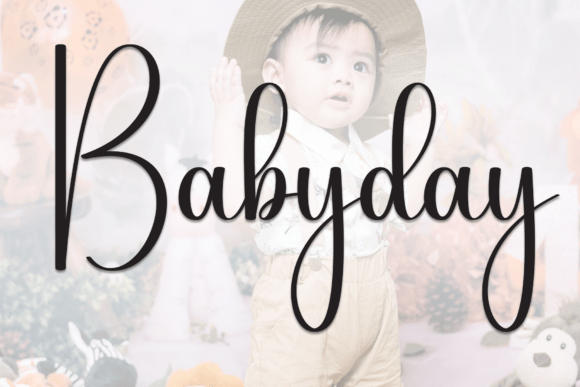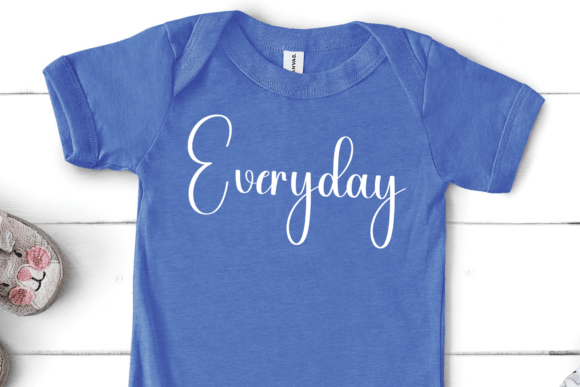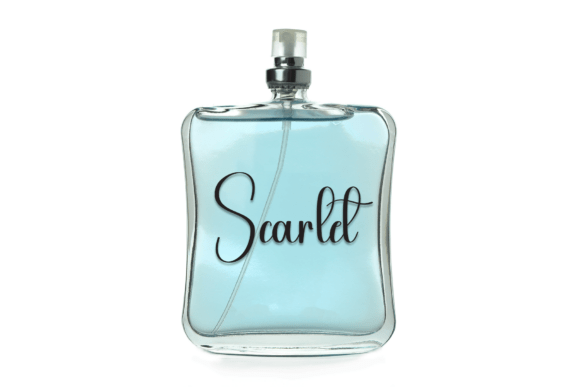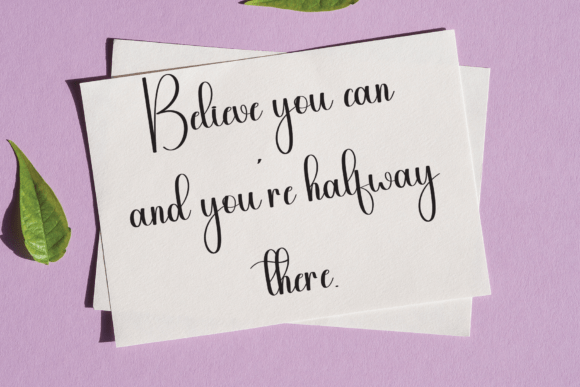
Babyday Font: Elegant Calligraphy Script for Wedding & Branding
About the Babyday Font
Add a touch of class to your work with the Babyday Font, a truly exceptional typeface. Elegant and expressive, this script font flows with effortless beauty. Featuring graceful curves and smooth connections, it’s ideal for adding a sophisticated, handwritten feel to wedding invitations, logos, branding projects, and social media graphics. Whether you’re designing something romantic or refined, this script font brings a timeless charm to any design.
Babyday Font’s elegant, expressive nature makes it perfect for projects requiring a touch of sophistication and handwritten charm. It excels in headlines, logos, short text blocks on packaging, and social media posts. However, its script style is less suitable for body text or UI elements where readability over long passages is crucial. Avoid using it for lengthy paragraphs or applications requiring high levels of legibility.
To complement its refined style, pair Babyday with a clean sans-serif like Lato for a contemporary feel, or a classic serif like Garamond for a more traditional approach. For a playful contrast, consider pairing it with a geometric sans-serif such as Montserrat. These pairings provide visual balance and prevent the design from feeling overly fussy.
Babyday possesses a distinctly elegant and romantic personality, best suited for brands focused on luxury, beauty, weddings, or other fields emphasizing refined aesthetics. Its graceful curves project a sense of timeless sophistication and effortless charm.
Babyday Font Usage Examples
Babyday Font Example